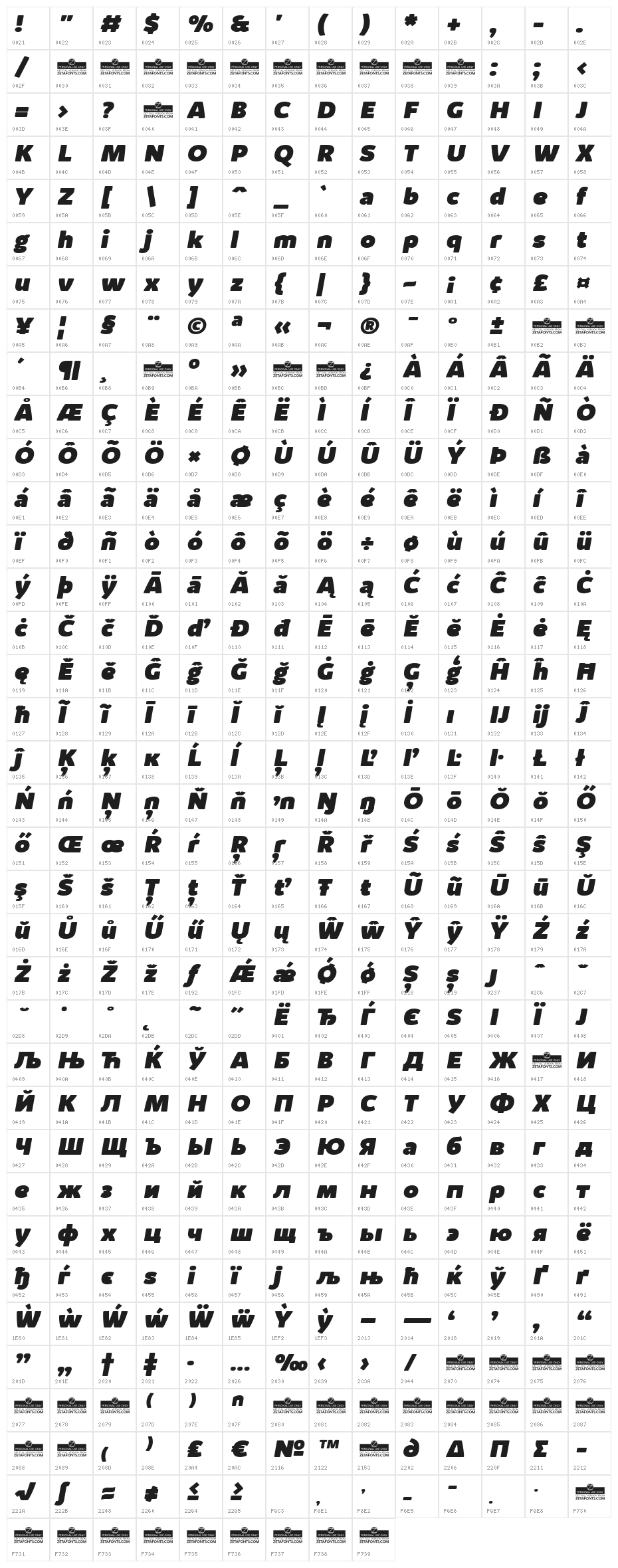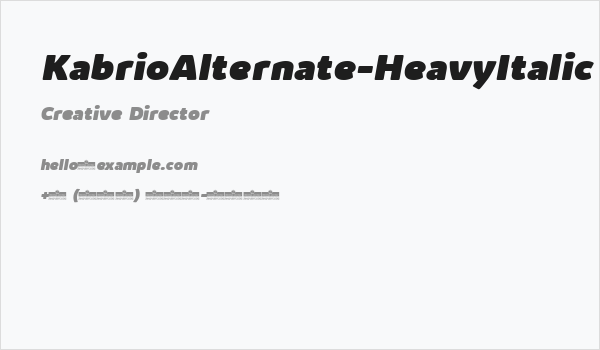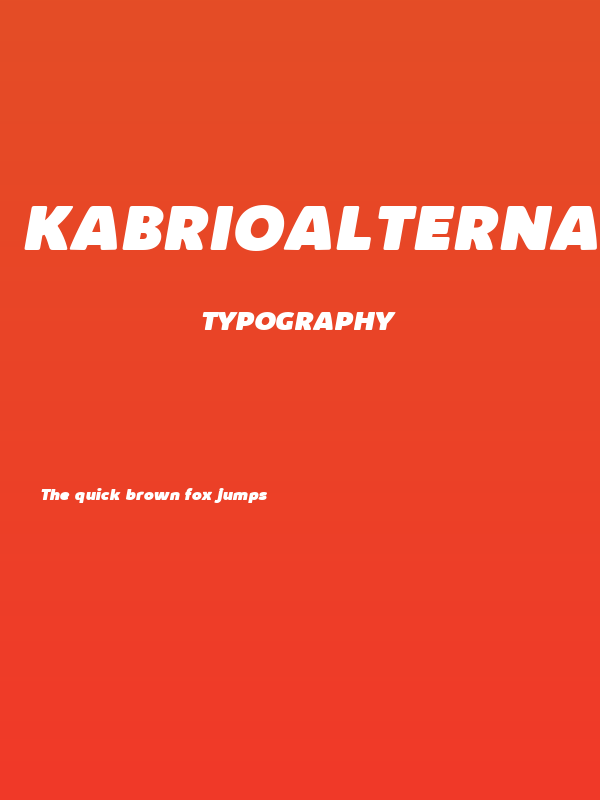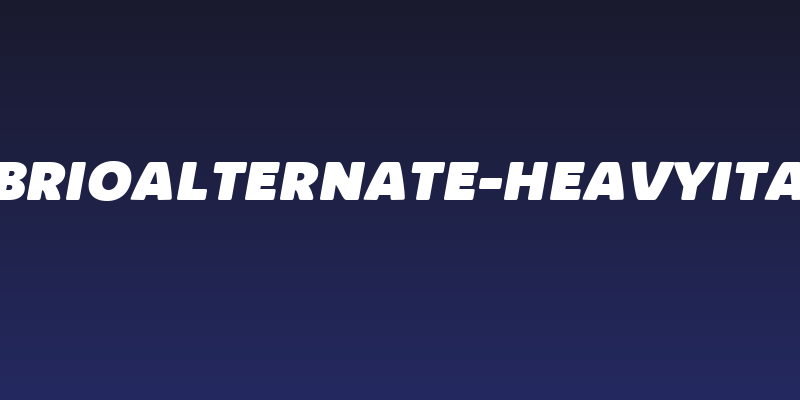
KabrioAlternate-HeavyItalic Font
KabrioAlternate-HeavyItalic Description
This font exhibits a bold and dynamic style with a heavy italic slant, giving it a sense of movement and energy. The characters are robust and thick, making them highly visible and impactful. The uppercase and lowercase letters maintain a consistent weight, providing a uniform appearance. The numerals and special characters are equally bold, ensuring they stand out in any context. The overall design is modern and assertive, suitable for making strong visual statements.
| Proposed Projects | Ideal for branding, headlines, posters, and any design requiring a strong visual impact. |